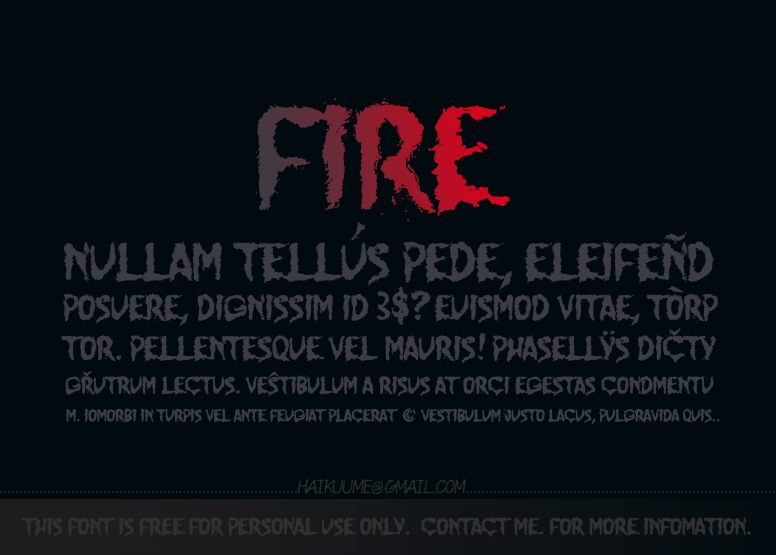
Jump Burn IP by Poemhaiku is a free distorted horror display font created for Idea Production Company. Its tall, uneven letters have torn contours, ragged cuts, and rough extensions that make the forms seem scraped or singed. The silhouette stays raw and restless.
Horror and underground music are its clearest creative territory, with the aggressively distressed lettering suited to film posters, album covers, and haunted event graphics. Its scorched-looking edges can become part of fire, smoke, or damaged-surface imagery, a direct match for post-apocalyptic survival games and dark horror comics.
Jump Burn IP has extensive language support.